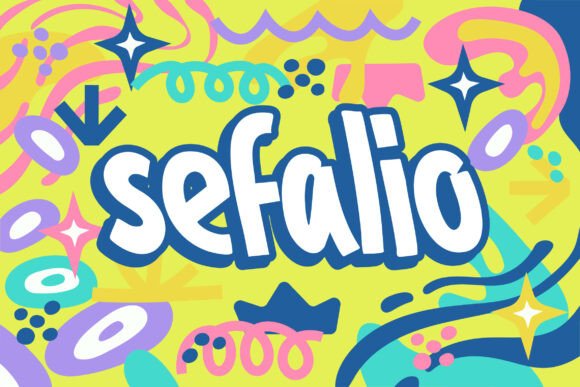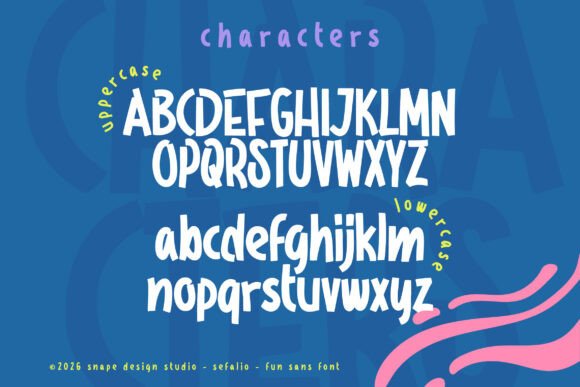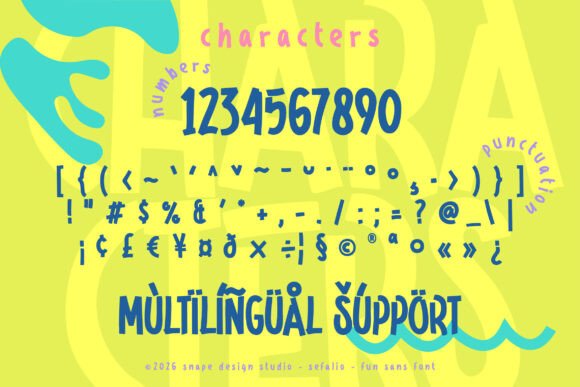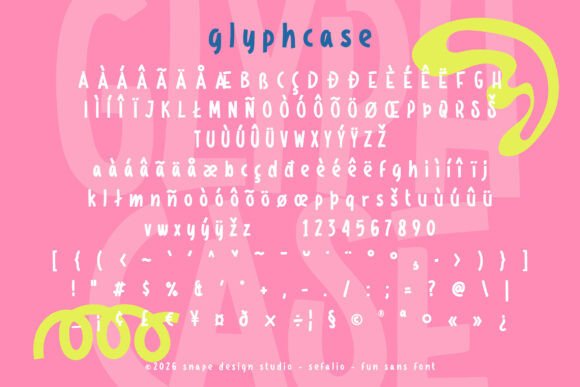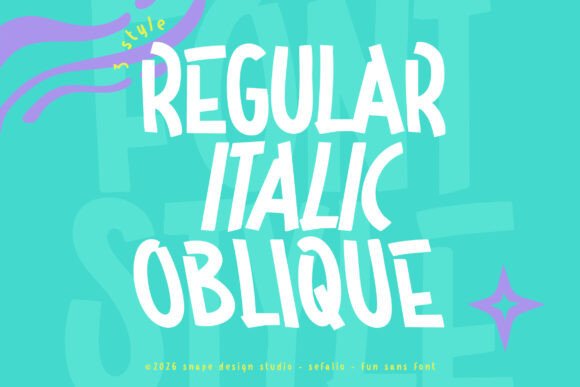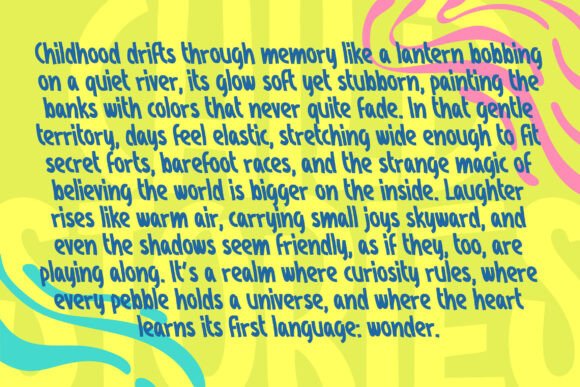
Introduction to Sefalio Font Font
Fonts play a crucial role in design, and the Sefalio Font font is a typeface that brings both character and versatility to any project. Whether you’re working on a branding project, a website, or a print design, the Sefalio Font font offers a unique style that can elevate your work.
SEFALIO is a fun sans font with a bold, playful, and energetic personality.
Designed to bring joy and expression into your designs, SEFALIO is perfect for posters, creative branding, headlines, kids designs, social media graphics, and eye catching editorial projects It comes in regular, italic, and oblique styles with multilingual support, making it a versatile choice for modern, friendly, and vibrant visual communication.
Key Features of Sefalio Font Font
Why Choose Sefalio Font Font?
The Sefalio Font font is more than just a typeface – it’s a design tool that helps you communicate your message with style and clarity. Its unique character set and versatile design make it suitable for a wide range of applications, from elegant invitations to bold headlines.
With its carefully crafted letterforms and balanced proportions, the Sefalio Font font ensures readability and visual appeal across all mediums.
What makes Sefalio Font font special?
The Sefalio Font font stands out with its unique design, exceptional readability, and versatility across various design applications.